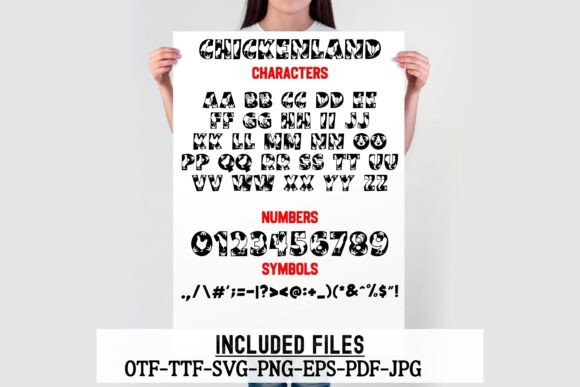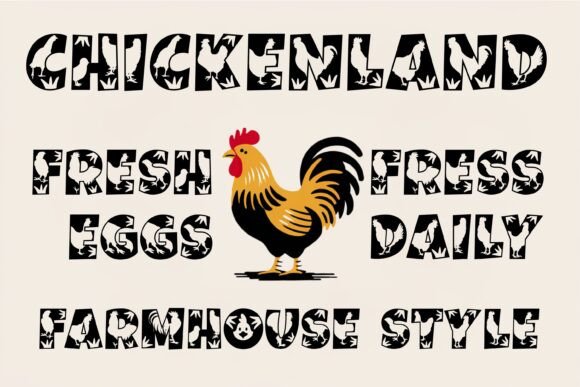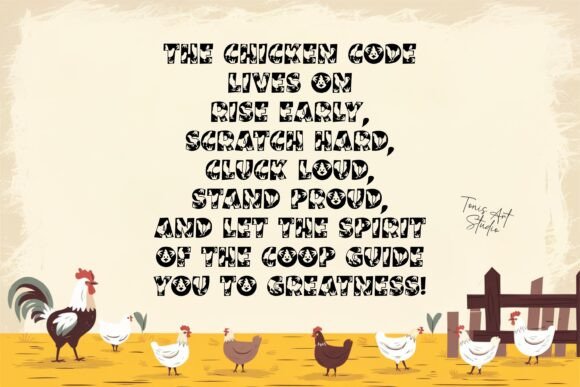
Introducing Chickenland Font: The Ultimate Playful Typeface for Rustic Decor and Farm-Themed Crafts
Are you a designer, crafter, or DIY enthusiast looking for a unique and playful font to add a touch of rustic charm to your projects? Look no further than the Chickenland Font! This delightful, farmhouse-style typeface is perfect for creating eye-catching designs that evoke the warmth and simplicity of rural life. In this article, we’ll explore the features, benefits, and uses of the Chickenland Font, and show you how it can elevate your designs and crafts to the next level.
What is Chickenland Font?
The Chickenland Font is a handcrafted, bold typeface that combines rustic charm with playful flair. Each letter is carefully designed to feature chicken silhouettes, rooster shapes, and farm elements, creating a lively and unique visual identity that’s sure to stand out. The font’s playful, hand-drawn style makes it perfect for a wide range of applications, from farm-themed crafts and rustic decor to Cricut and Silhouette projects.
Key Features of Chickenland Font
- Playful, handcrafted design: Each letter is carefully crafted to feature chicken silhouettes, rooster shapes, and farm elements, giving the font a unique and whimsical feel.
- Farmhouse-style typeface: The font’s bold, rustic style is reminiscent of classic farmhouse signs and decor, making it perfect for creating authentic, country-inspired designs.
- Versatile and decorative: The Chickenland Font is designed to be versatile and easy to use, making it perfect for a wide range of projects, from T-shirts and farmhouse signs to invitations and stickers.
- Perfect for Cricut and Silhouette projects: The font’s bold, clean design makes it ideal for cutting machines like Cricut and Silhouette, allowing you to create intricate designs and crafts with ease.
Uses for Chickenland Font
The Chickenland Font is a versatile typeface that can be used in a wide range of applications, including:
- T-shirts and apparel: Add a playful touch to your T-shirt designs with the Chickenland Font, perfect for farm-themed clothing and accessories.
- Farmhouse signs and decor: Create authentic, rustic signs and decor for your home or business with the Chickenland Font.
- Barn branding and advertising: Use the font to create eye-catching branding and advertising materials for your farm or rural business.
- Invitations and stationery: Add a touch of whimsy to your invitations, cards, and stationery with the Chickenland Font.
- Stickers and labels: Use the font to create fun and colorful stickers and labels for your crafts, products, or packaging.
- Crafting and DIY projects: The Chickenland Font is perfect for a wide range of crafting and DIY projects, from paper crafting to woodworking and more.
Benefits of Using Chickenland Font
So why choose the Chickenland Font for your next project? Here are just a few benefits of using this unique and playful typeface:
- Adds a unique touch: The Chickenland Font adds a fun and unique touch to any project, setting it apart from more traditional typefaces.
- Evokes a rural feel: The font’s rustic, farmhouse-style design evokes a sense of rural charm and simplicity, perfect for creating authentic, country-inspired designs.
- Easy to use: The Chickenland Font is designed to be easy to use, even for those with limited design experience.
- Versatile: The font can be used in a wide range of applications, from digital designs to print materials and crafts.
In conclusion, the Chickenland Font is a playful, farmhouse-style typeface that’s perfect for designers, crafters, and DIY enthusiasts looking to add a touch of rustic charm to their projects. With its bold, handcrafted design and versatile uses, this font is sure to become a favorite in your design arsenal. So why wait? Download the Chickenland Font today and start creating eye-catching designs that evoke the warmth and simplicity of rural life!